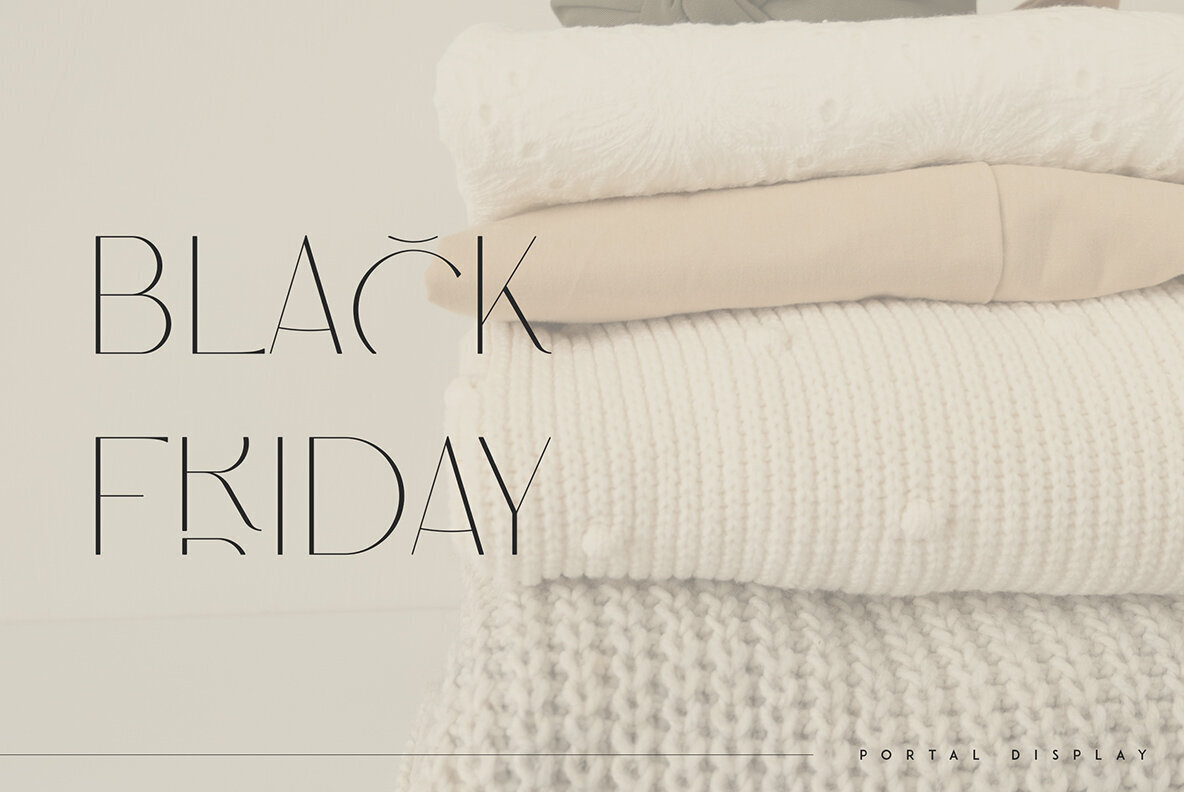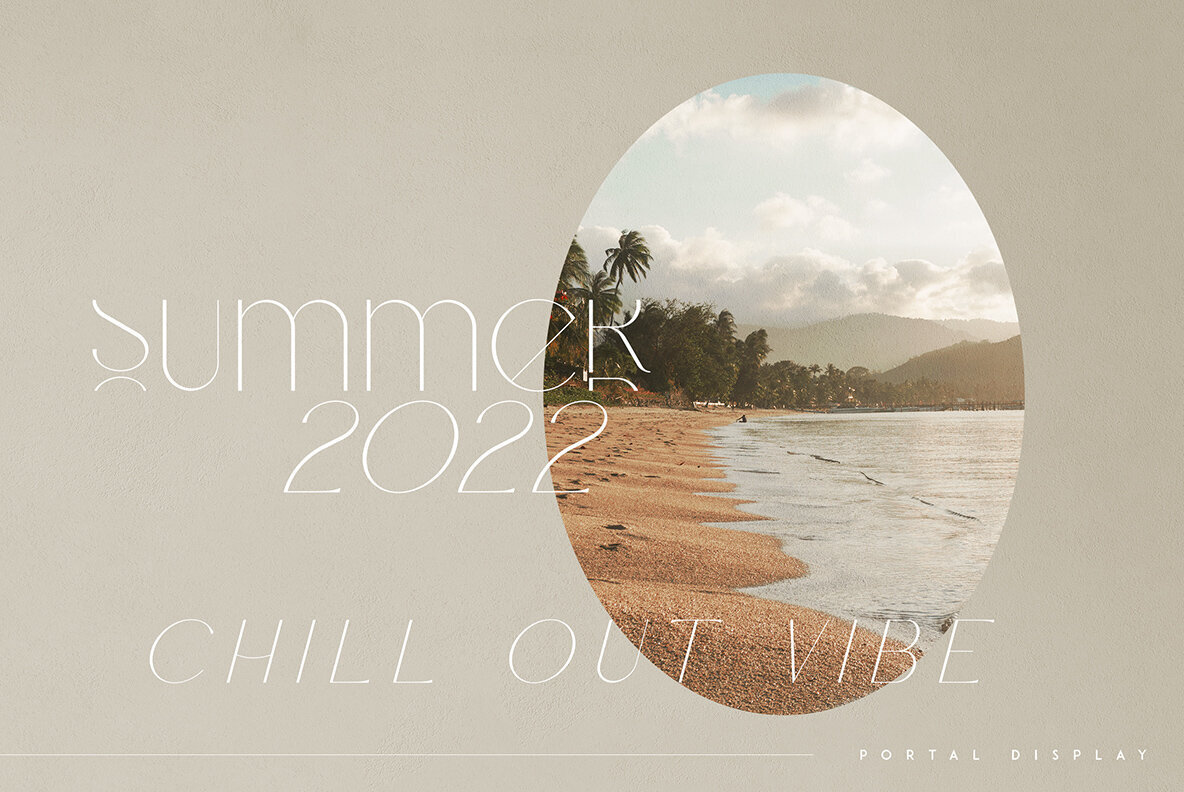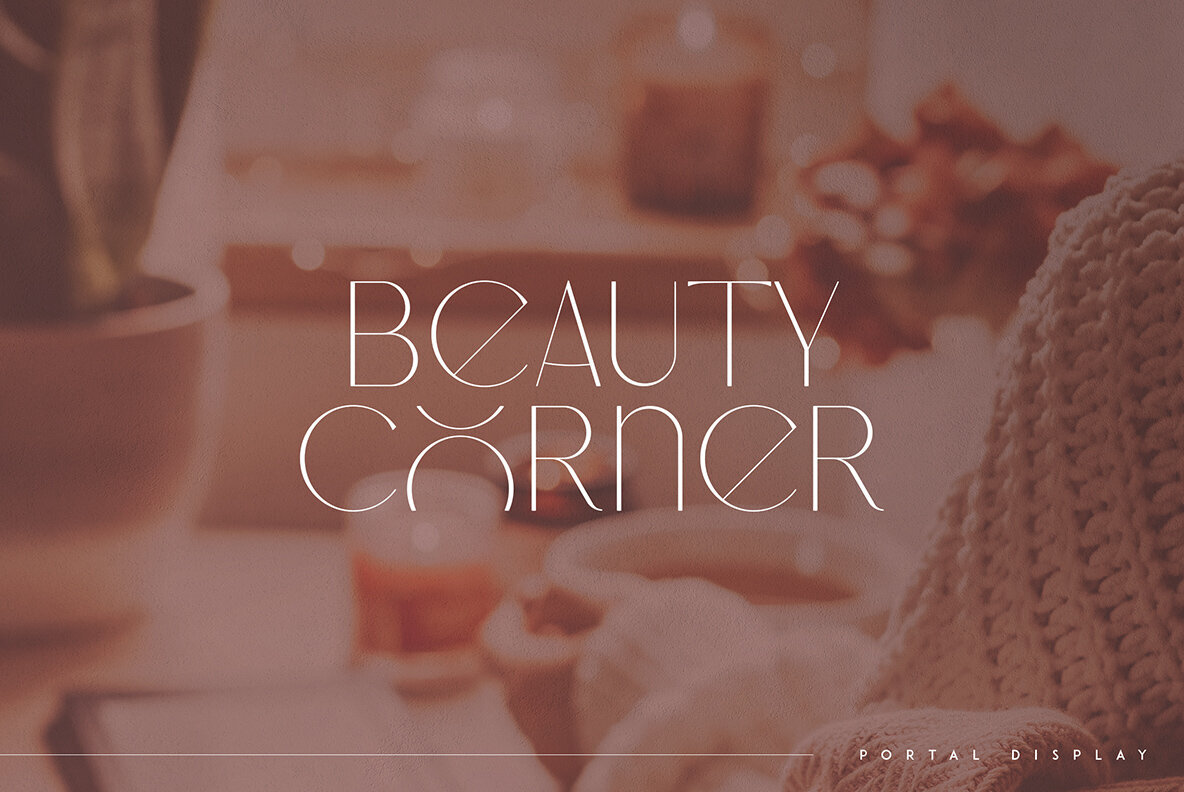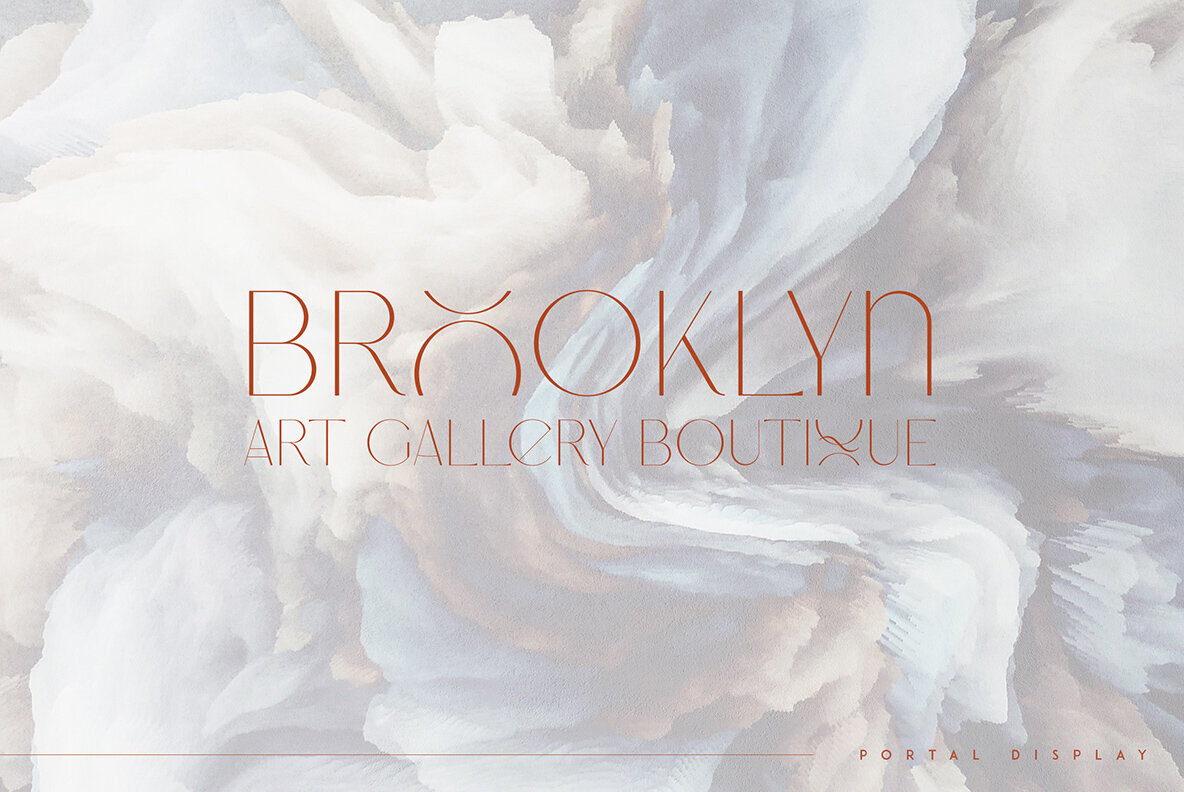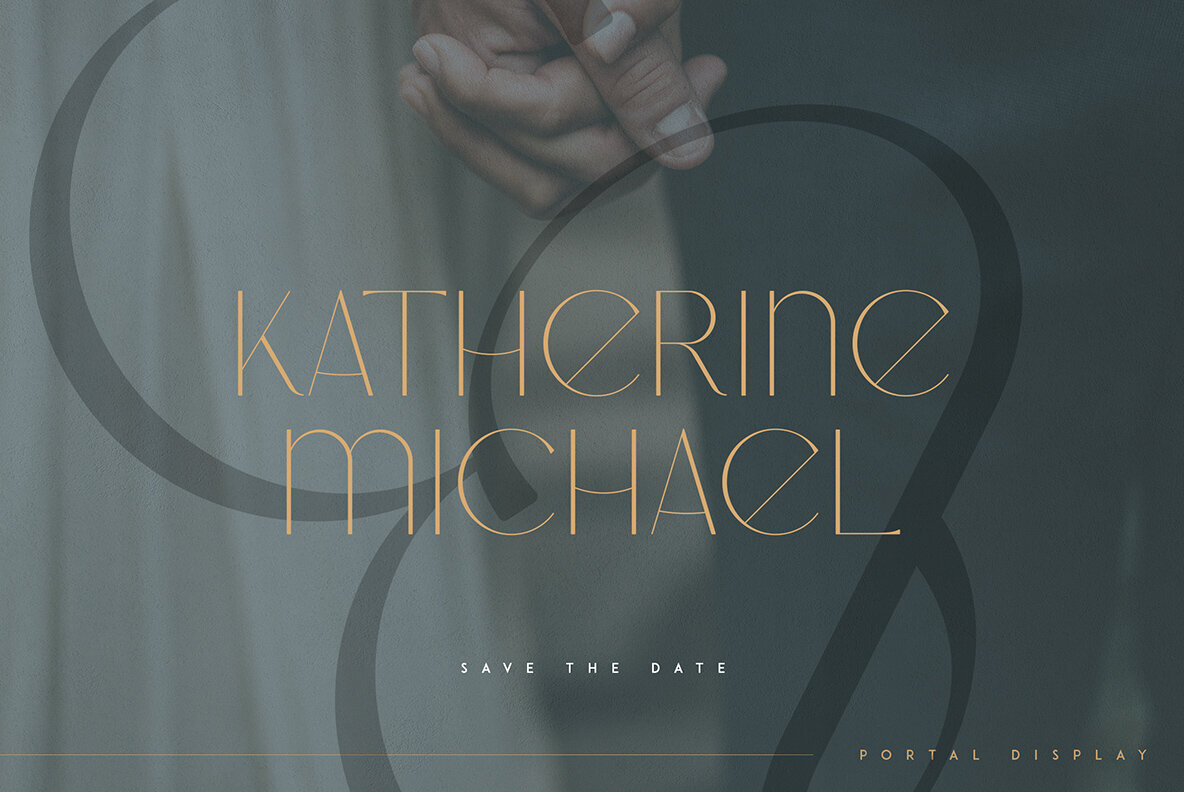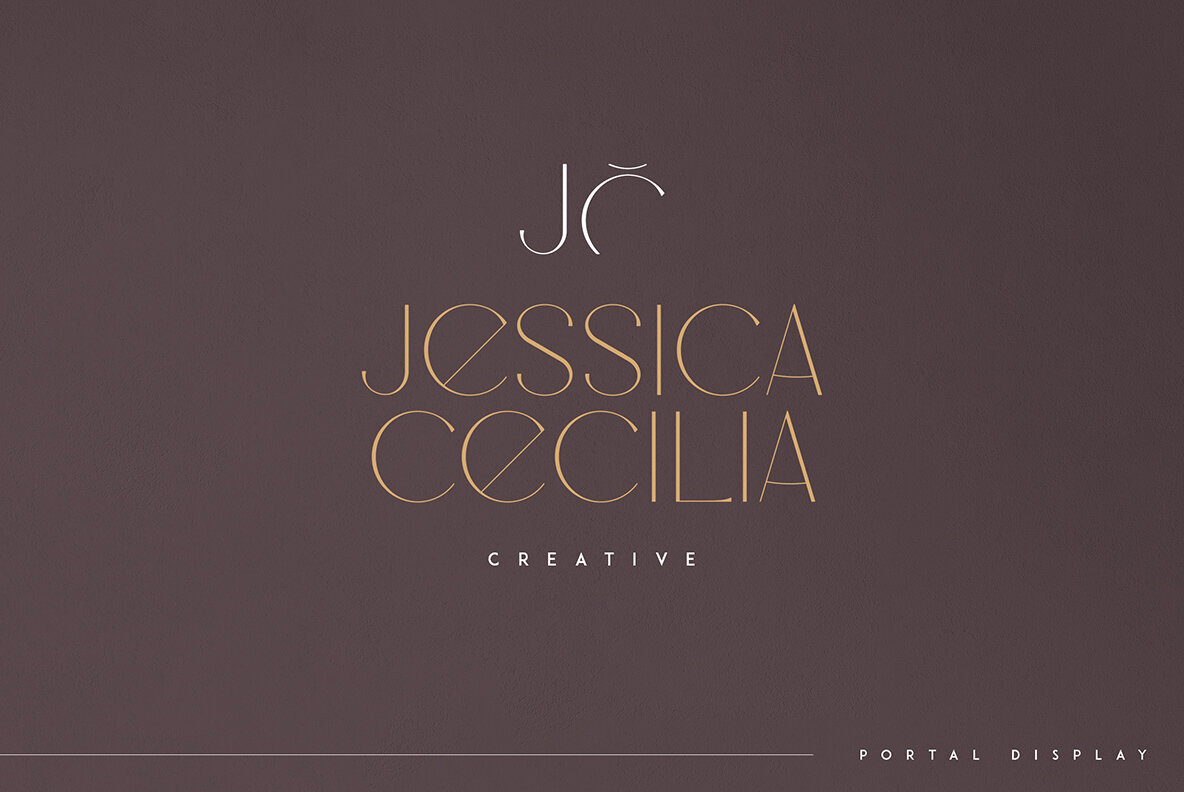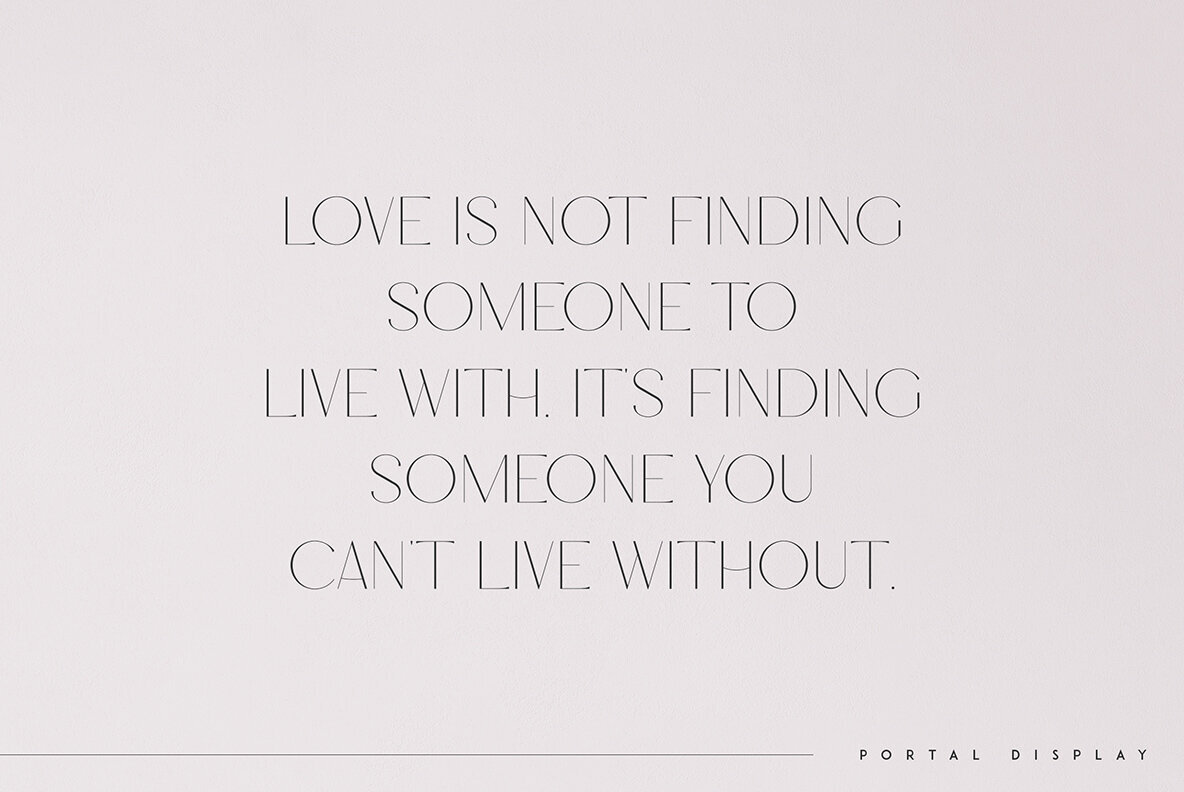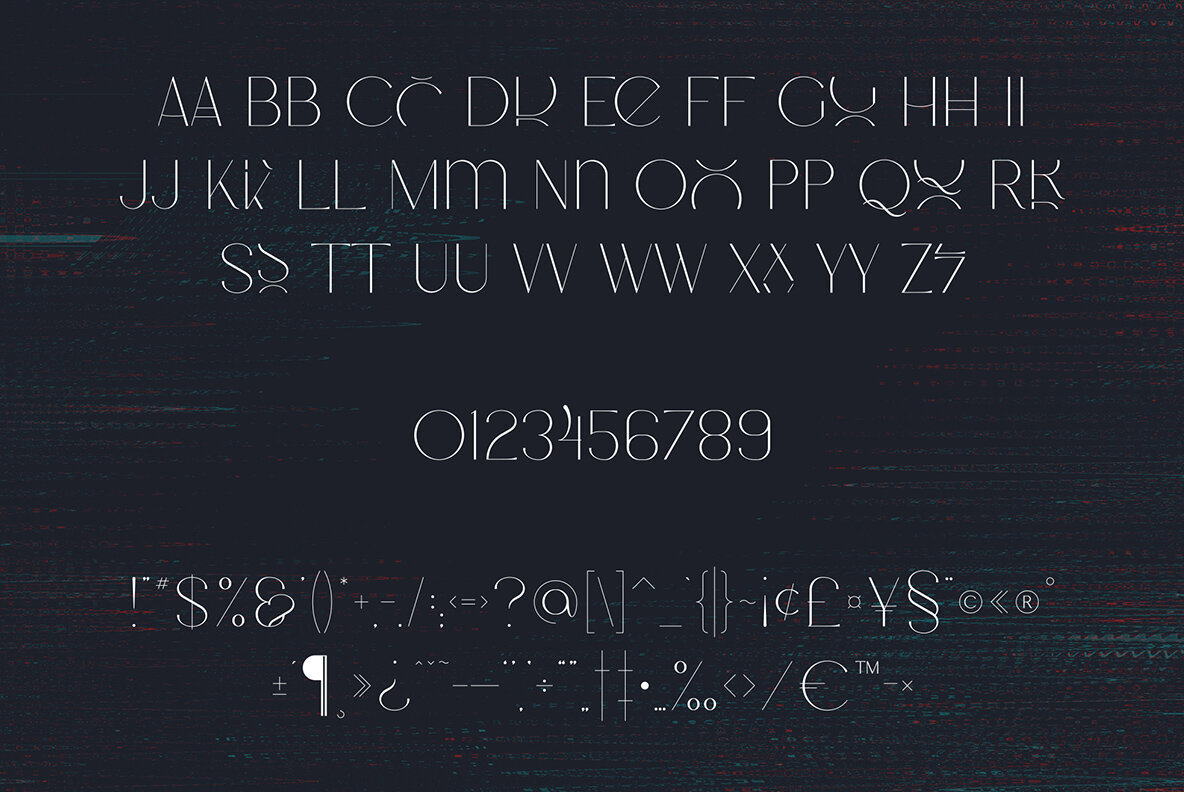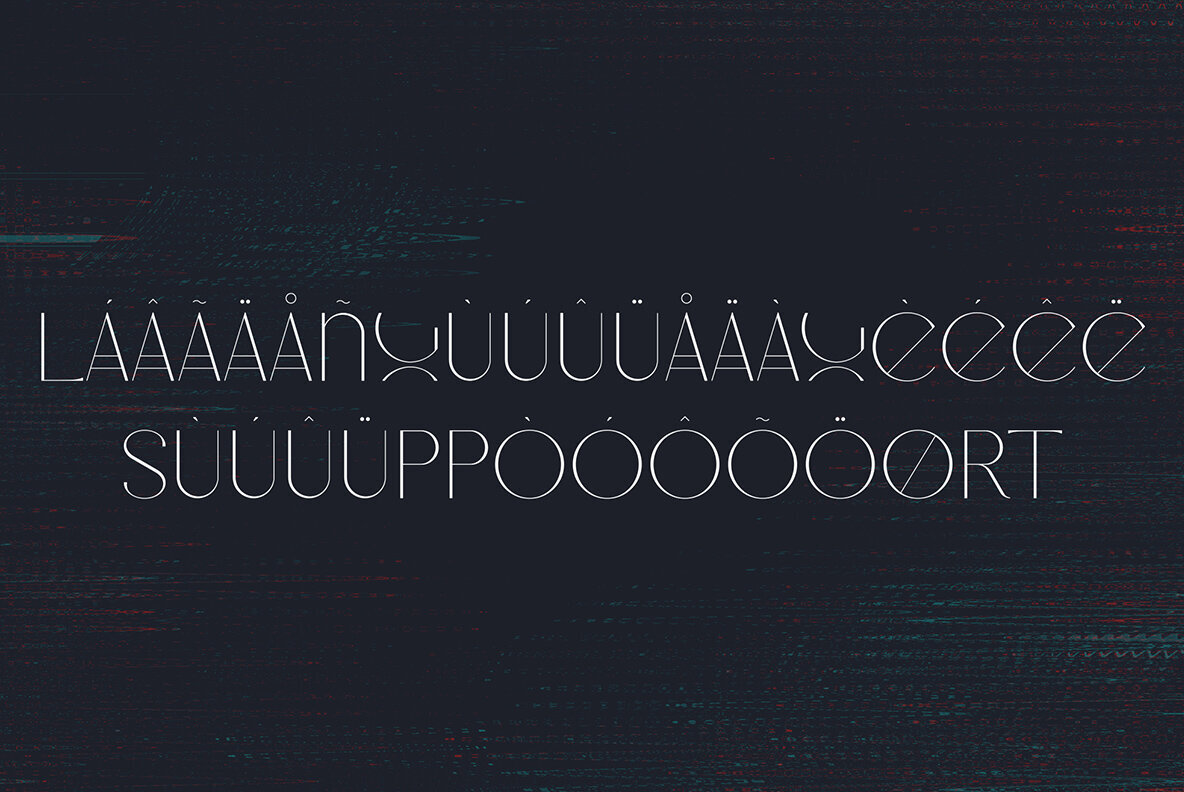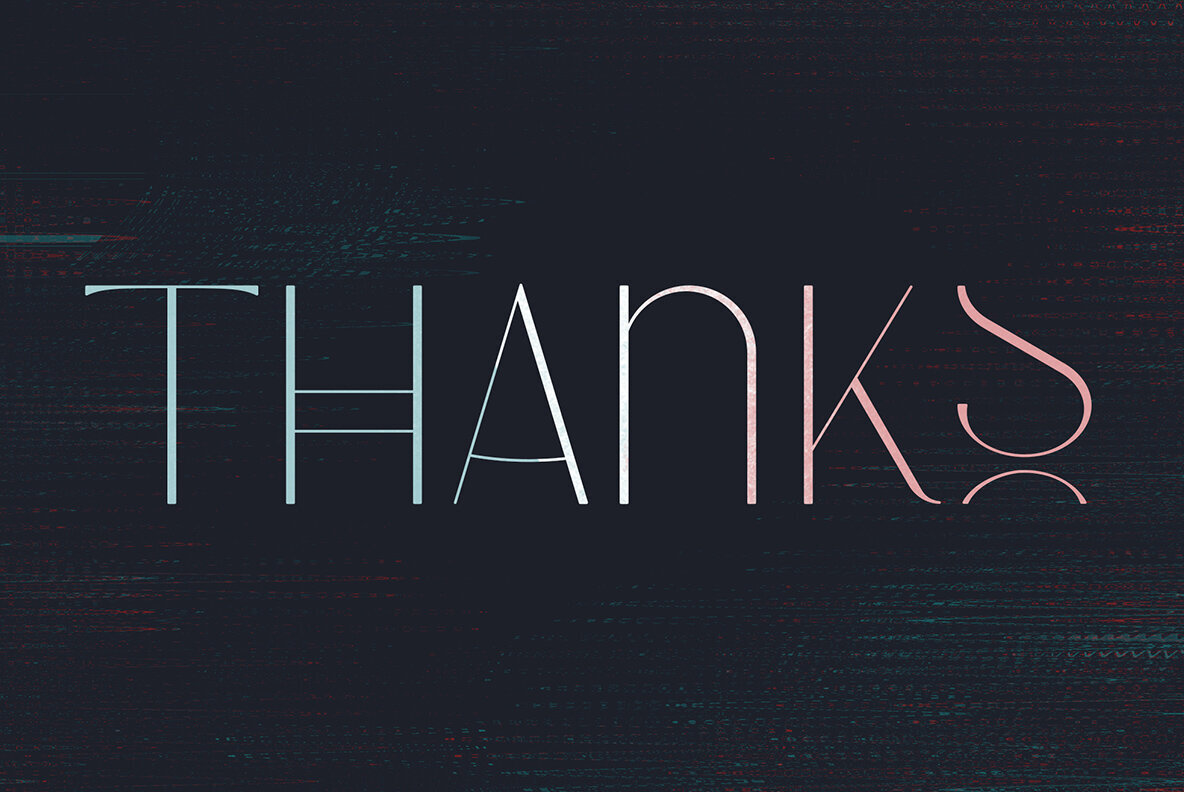
Portal Display Font
Portal Regular
Portal Italic
Portal Display, designed by VP Creative Shop, offers a unique blend of creativity and elegance. With its regular and italic styles, this typeface accommodates a wide array of applications, making it a mainstay in any designer's toolkit. Portal's adaptability shines through, whether used for branding projects, homeware designs, product packaging, or magazine headers. Additionally, it's perfect for adding a sophisticated text overlay on images.Portal Display: A Versatile Typeface for Creative Projects